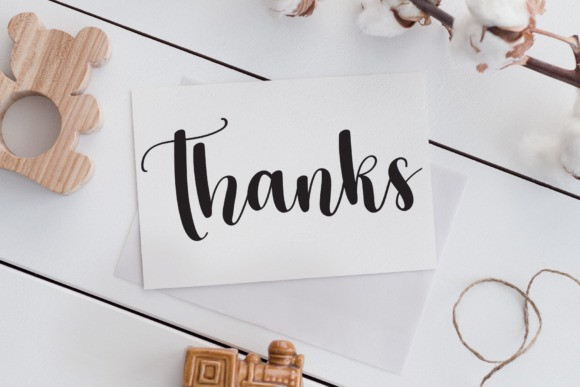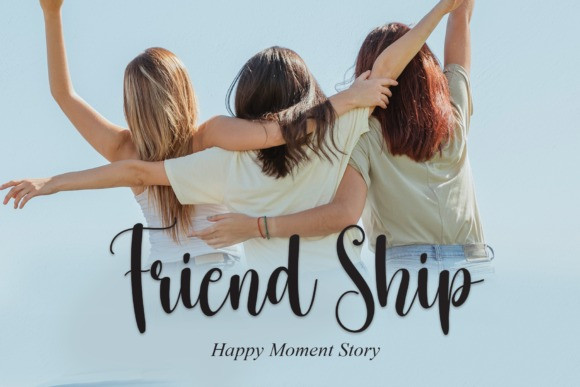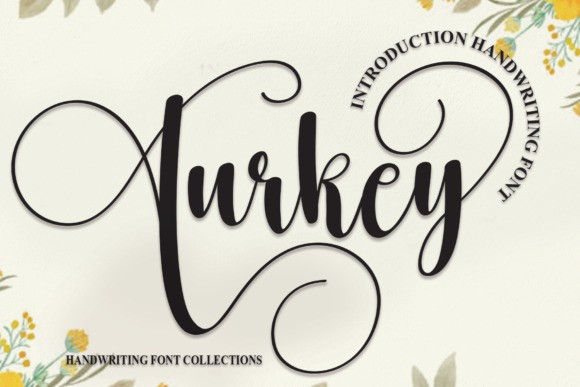
Turkey Font
Turkey Font is an elegant and sophisticated script font. With its unique characters, this typeface is suitable for wall displays, wedding invitations, social media post logos, advertisements, product packaging, product designs, labels, photography, watermarks, invitations, stationery, and others.